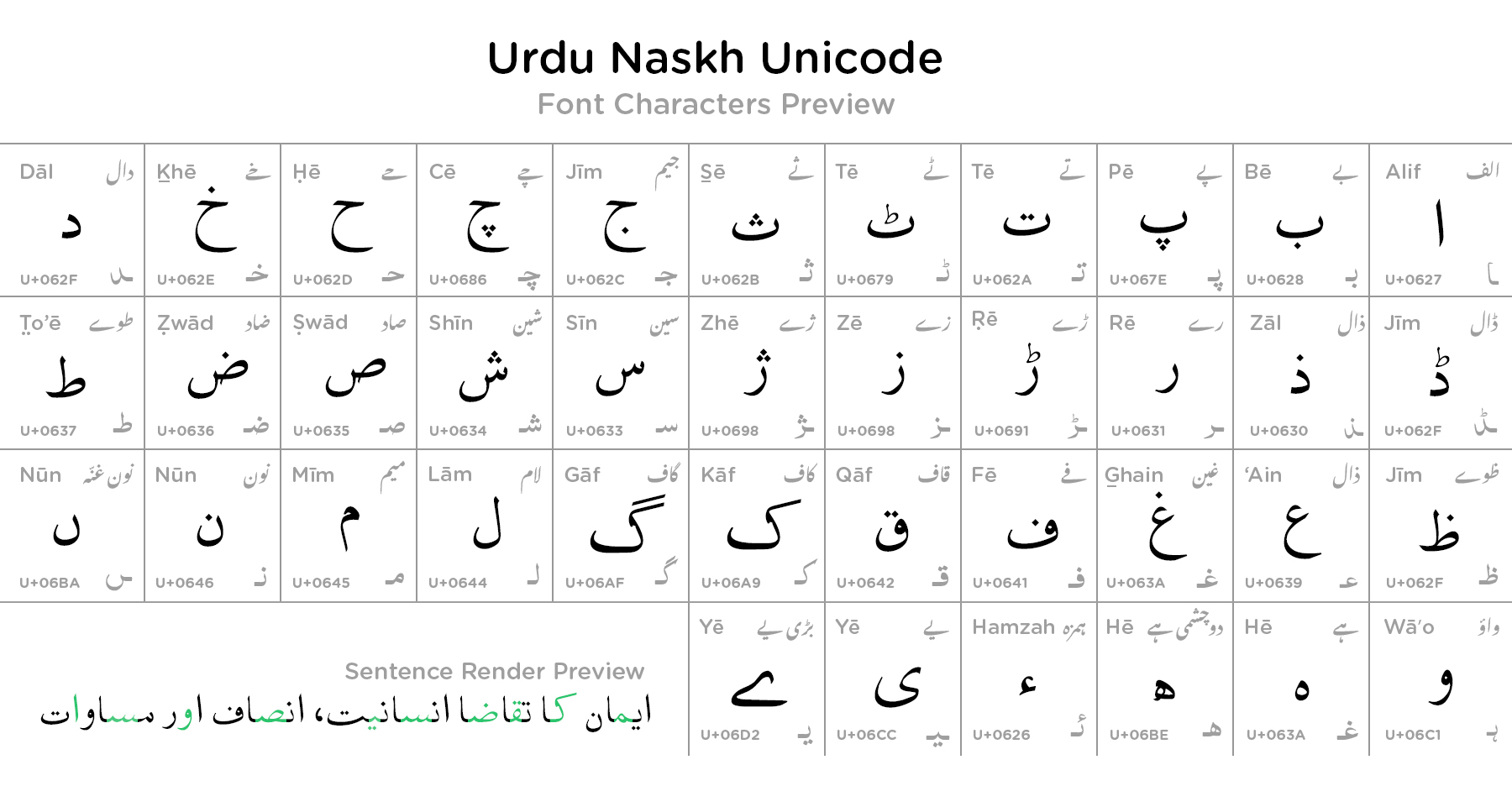
Urdu Naskh Unicode is a versatile and refined Urdu font designed by Amanat Ali Goher and released on January 30, 2016. Inspired by Naskh’s script, this font shows elegance and clarity with its plain overall look and horizontal emphasis. Featuring 384 characters and 326 glyphs, this Urdu font supports Arabic, Latin, Greek, and more, making it compatible with a wide range of languages and symbols across various design platforms. Moreover, with its huge compatibility with several Unicode blocks, the font’s practicality to design projects increases even more. With its single font-weight (regular), Urdu Naskh Unicode offers high legibility, making it ideal for short text applications where clarity is paramount. While its thick and dynamic thickness adds impact, its fine look and clear letterforms ensure readability even at smaller sizes. The font’s straight and linear vertical characters, soft corners, and sharp edges create a formal aesthetic suitable for branding, formatting letters and documents, book texts, and more. Whether used in digital or print media, this font radiates appeal and professionalism, making it a valuable tool for various design projects.
Urdu Naskh Unicode
| Font Developer | Amanat Ali Goher |